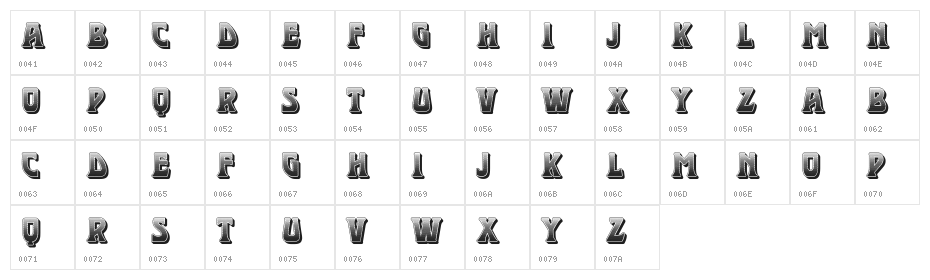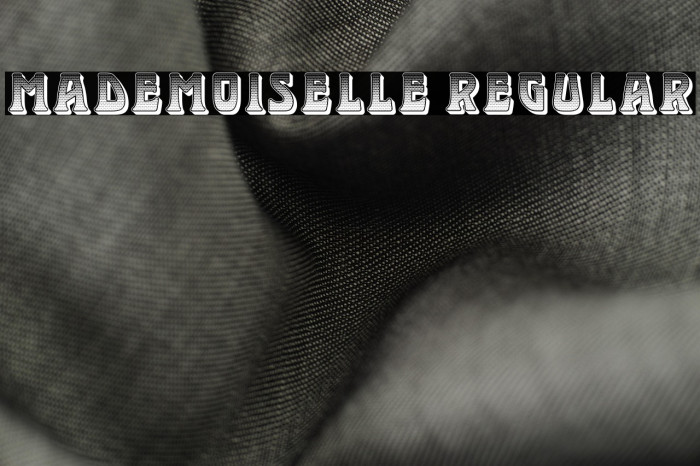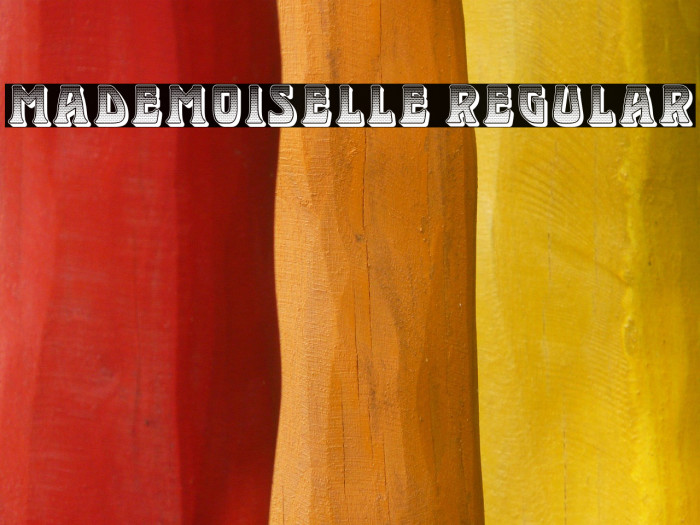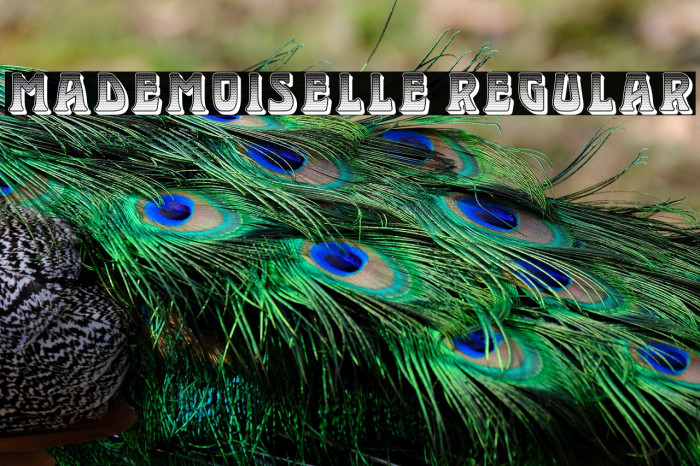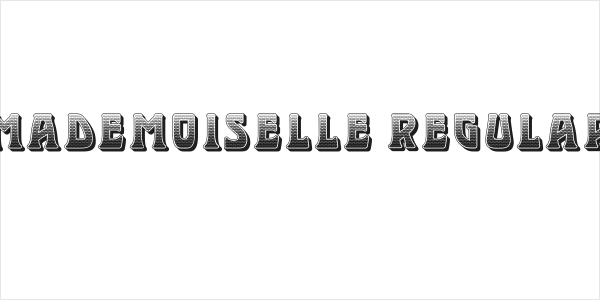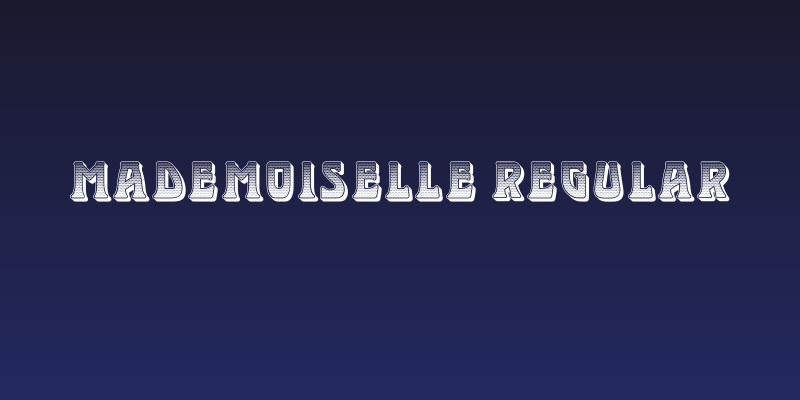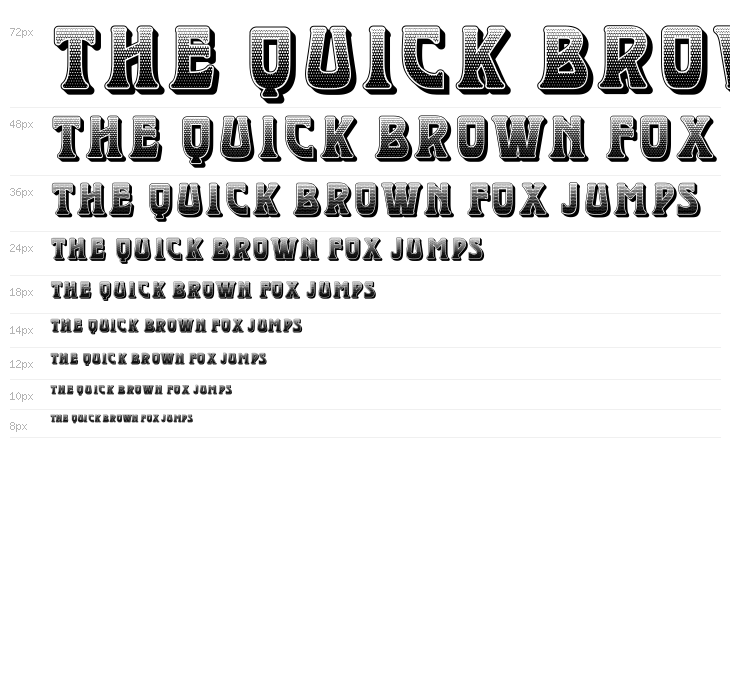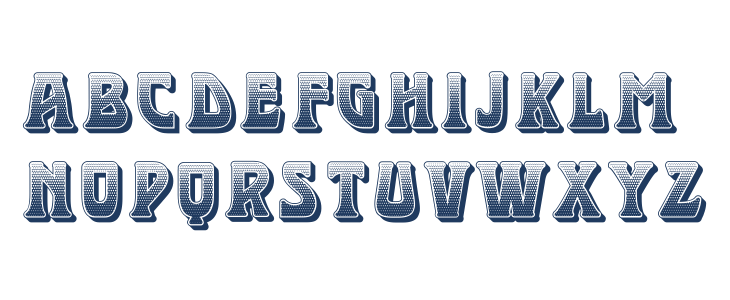
Mademoiselle Regular Font
Mademoiselle Regular Description
This font features a bold, decorative style with a vintage flair. The characters are heavily stylized with a three-dimensional effect, achieved through a combination of shading and a dotted texture. Each letter has a strong presence, making it ideal for attention-grabbing designs. The uppercase letters are particularly striking, with a consistent width and a slightly condensed form. The intricate detailing within each character adds a sense of depth and complexity, making it suitable for projects that require a touch of elegance and sophistication.
| Proposed Projects | Ideal for vintage-themed posters, logos, book covers, and signage that require a bold and decorative touch. |